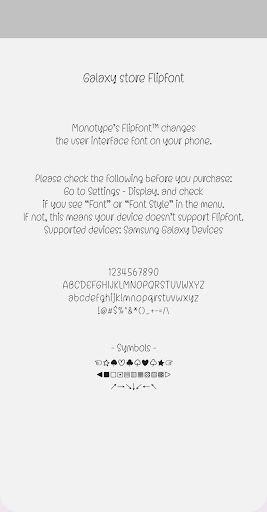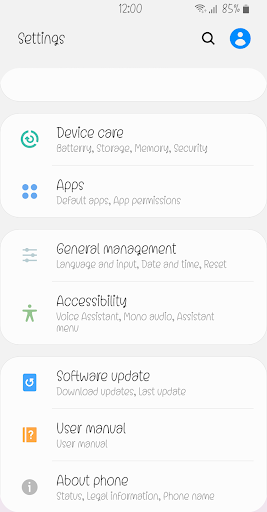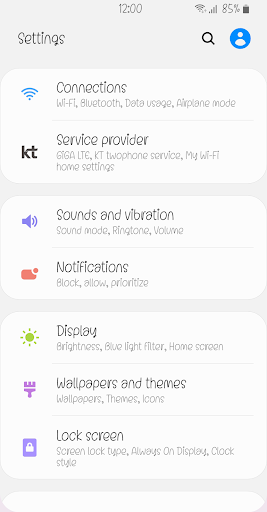
Nm PicnicDate
Nm PicnicDate is a lovely and cute font and has good readability. Customize your phone with this. Please try this font and leave your feedback.